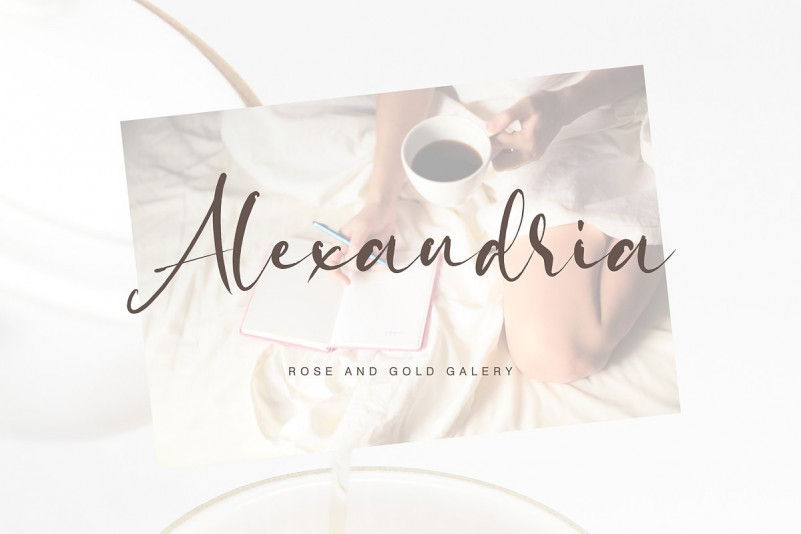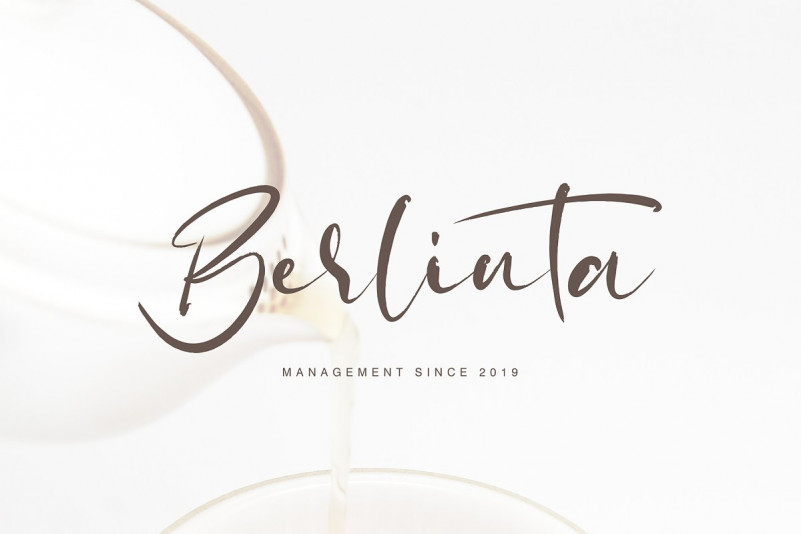
Sheilla Font
Sheilla handwritten font with new style, this font will perfect for many different project ex: quotes, logo, blog header, poster, banding, fashion, apparel, letter, invitation, stationery, etc…